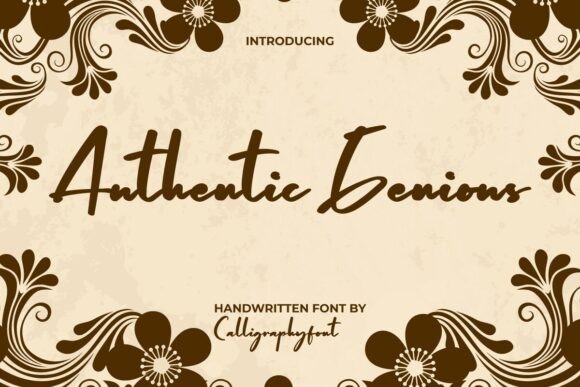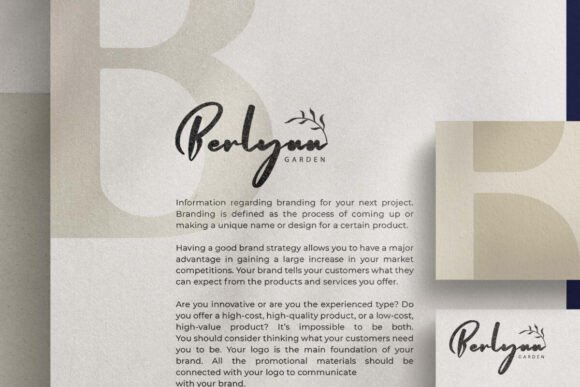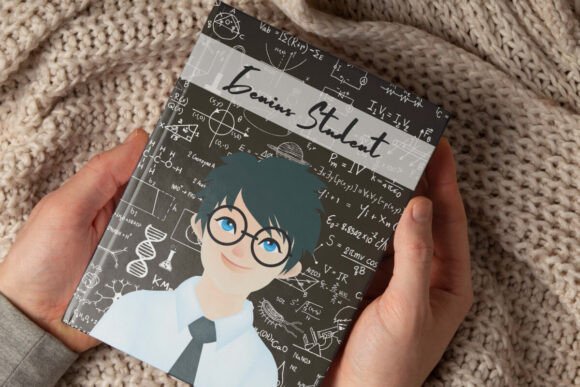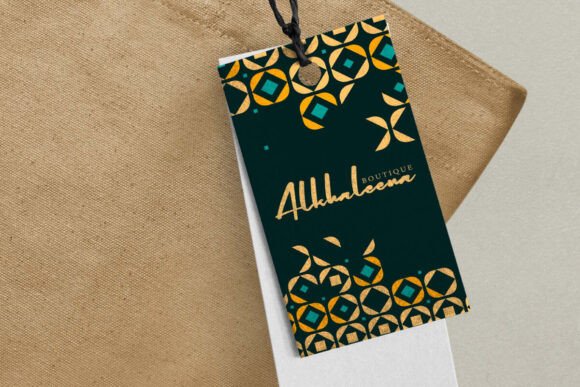
Authentic Genious Font
About the Authentic Genious Font
Elevate your designs with Authentic Genious Font, a font that combines sophistication with readability. Authentic Genious Font is a bold retro brush signature handwriting font. This font has thick lines and is a little complicated, so it’s a little difficult to identify, but it still has beauty. It will be good to complement any project design, such as brand image, brochure, cover, custom design, flyer, invitation, label, marketing material, menu, poster, screen print, signage, stationery, title, website page, and many more!
Authentic Genious Font’s bold, retro style shines in headlines, short titles, and logos where its unique character makes a strong statement. It’s ideal for branding projects aiming for a vintage or handcrafted feel, particularly for products emphasizing authenticity and quality. However, its complexity makes it unsuitable for body text or UI elements requiring high readability.
Consider pairing it with a clean sans-serif like Montserrat for a contemporary contrast, or a classic serif like Garamond for a more traditional feel. For a playful touch, a simple geometric sans-serif like Futura could work well. Avoid pairing it with other highly stylized fonts, which would create visual clutter.
The font exudes a confident, slightly rebellious personality, best suited for brands targeting a sophisticated yet unconventional audience. Its handcrafted quality adds a touch of vintage charm, making it perfect for projects aiming for a retro yet modern aesthetic.
Authentic Genious Font Example